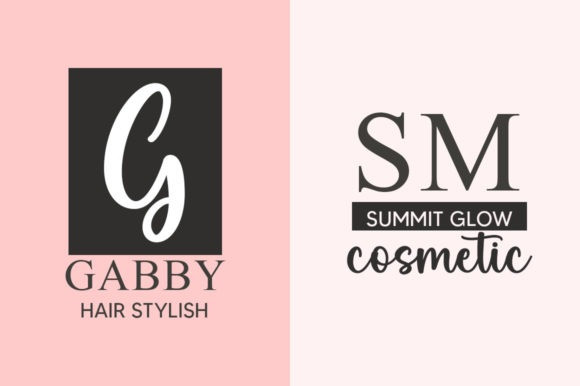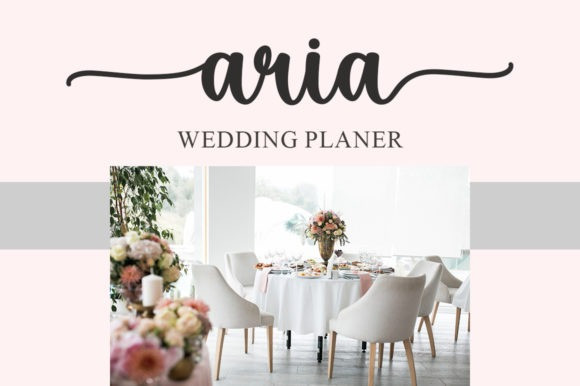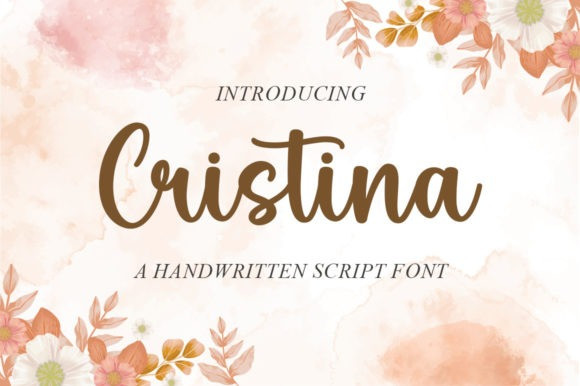
Cristina Font
Cristina Font is a magical handwritten font. It looks ravishing on invitations, thank you cards, quotes, greeting cards, logos, business cards and every other design which needs a customized touch.